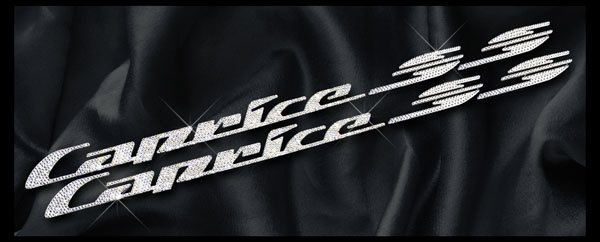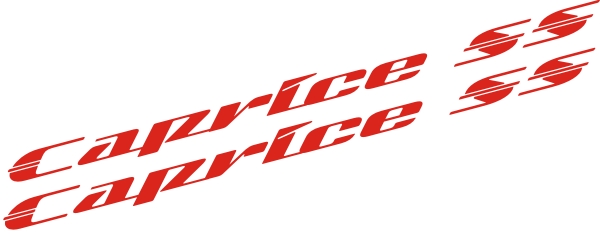
Font ID for Caprice SS
Looking for Font ID of this font if it is a font...?
TVG, I read somewhere that Chevrolet has all of the text on their vehicles custom made, and its not a standard font. But who knows, I could be wrong. Good Luck
Ir looks like the SS from the Impala SS emblem and someone added the Caprice to it. Chevrolet never offered a Caprice SS.
Yes, they almost always create a custom nameplate for a car. Rarely would a car manufacturer use a typestyle to typeset a nameplate. They design the letters to be unique just like every other detail on the car.
I have your answer Will - It's Sandoval skewed and modified . . . !
If it's not it - It's as damn close as you'll ever get ! ! !
you'll have to get close & modify it Chevy customs their fonts I did an Impala SS last year & tried to find font but ended up tracing it & making what I needed
Proof is in the Font !
Like I said - Sandoval - Modified & Skewed . . . !